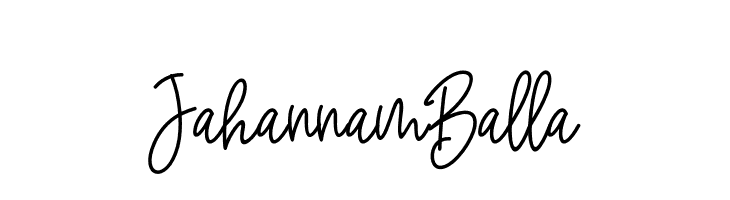
A bold, expressive handwritten font with dynamic strokes.
A decorative, cursive font with elegant loops and swashes.
A bold, handwritten-style font with dynamic and playful characteristics.
A playful, hand-drawn font with a casual and creative style.
A playful, handwritten font with flowing, connected letterforms.
A lively handwritten font with fluid strokes and a modern, approachable style.